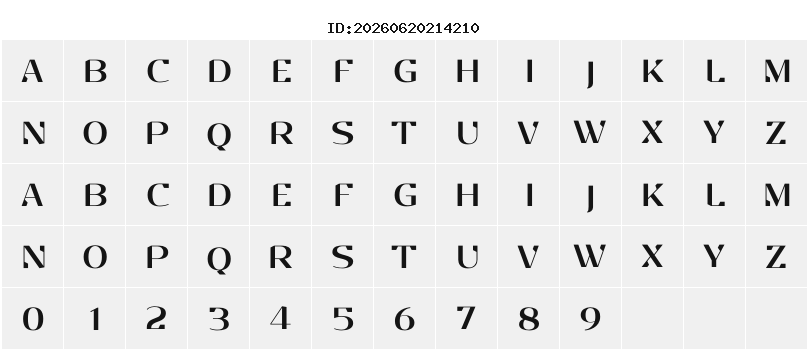
• Font Name: EP Stellari Display
• Full Font Name: EP Stellari Display
• Designer: Edy Pang
• Description: A modern futuristic font with a little bit classic touch
About EP Stellari Display.otf
EP Stellari Display.otf is a modern, elegant sans-serif font designed for ultimate readability and visual harmony. Perfect for branding, headlines, web design, and print materials.